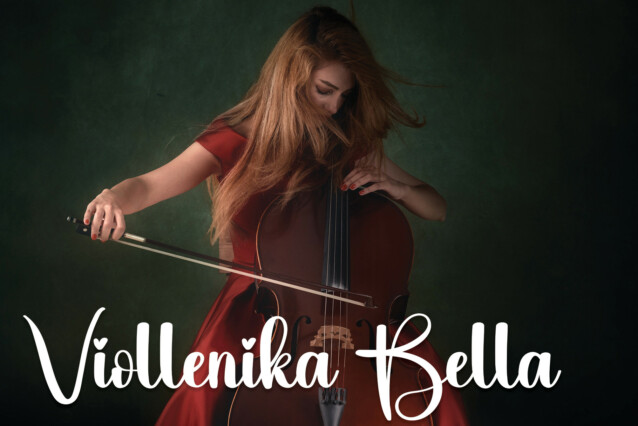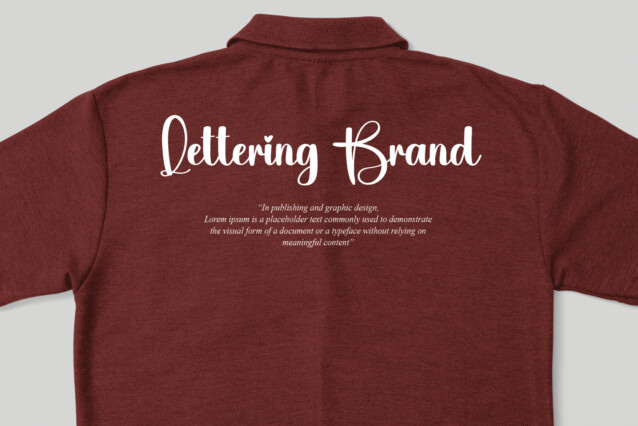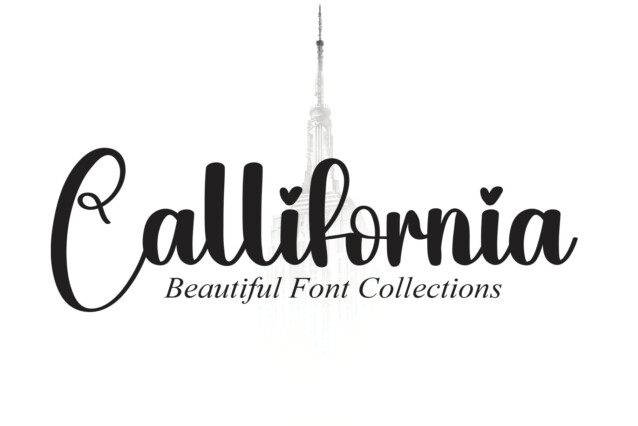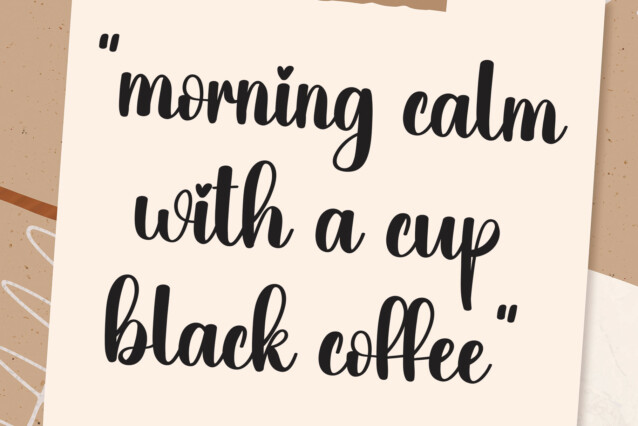
Fine Script Font
Fine Script Font is a modern handwritten font. Its latest style letters are perfect for wall displays, wedding invitations, social media post logos, advertisements, product packaging, product designs, labels, photography, watermarks, invitations, stationery, and any project that requires handwritten typography.